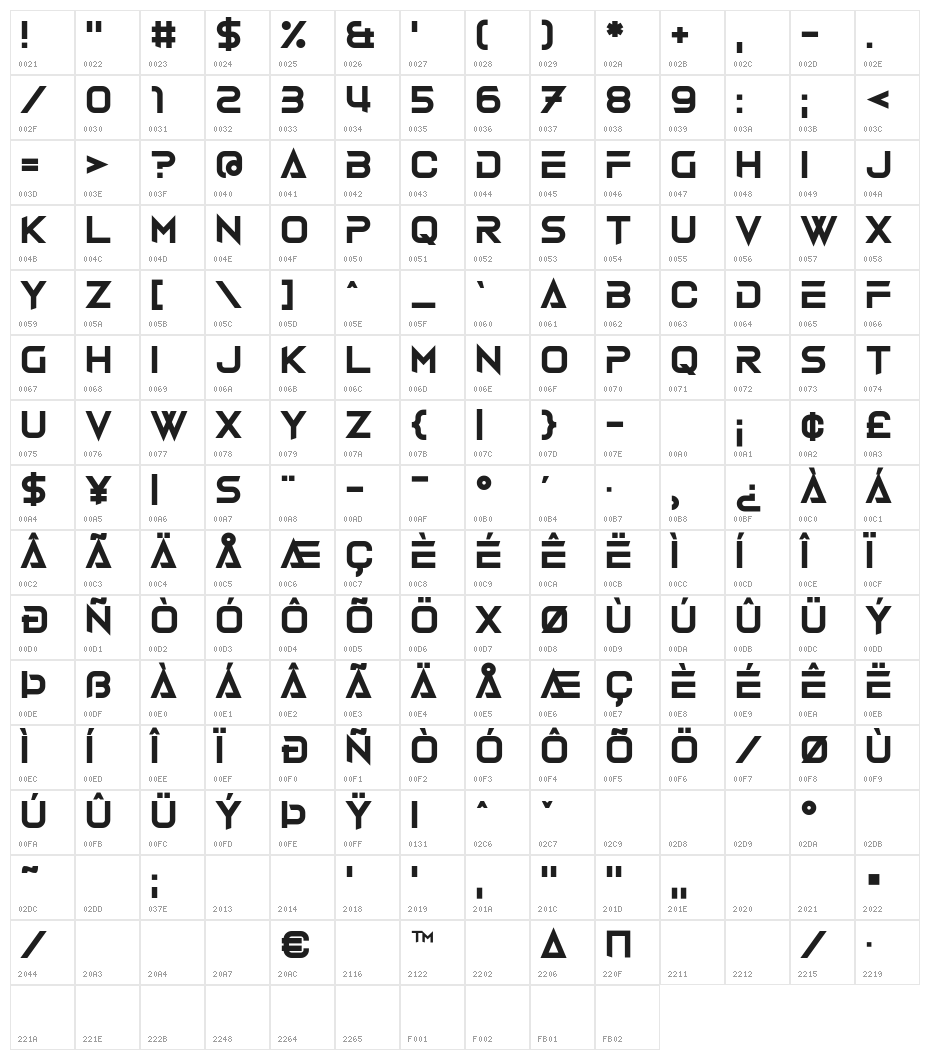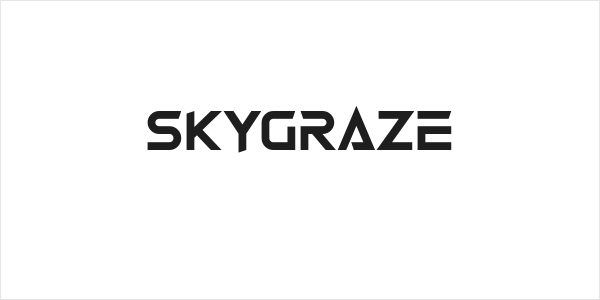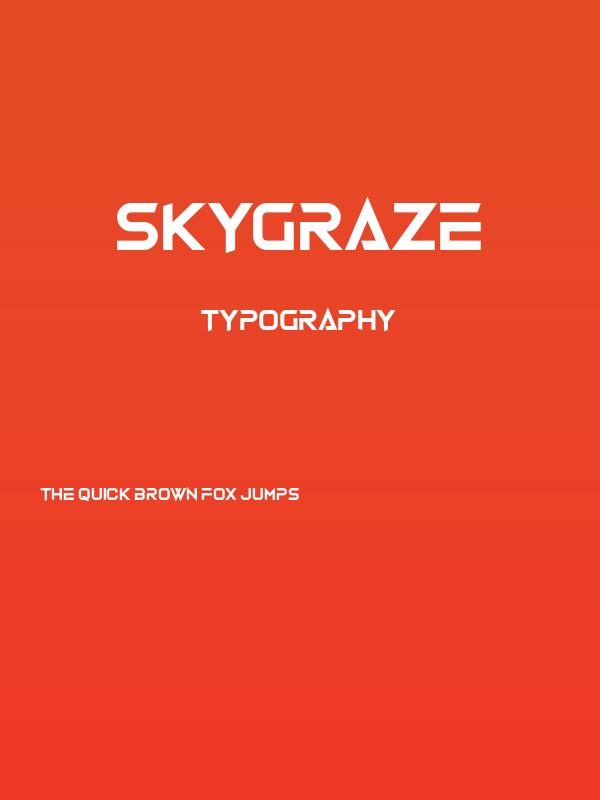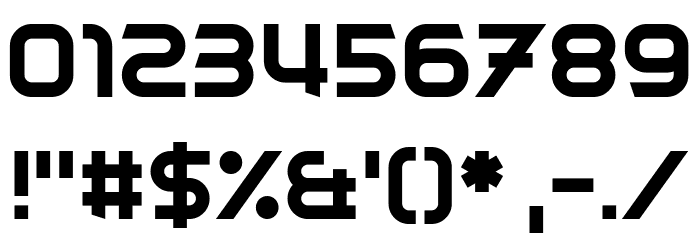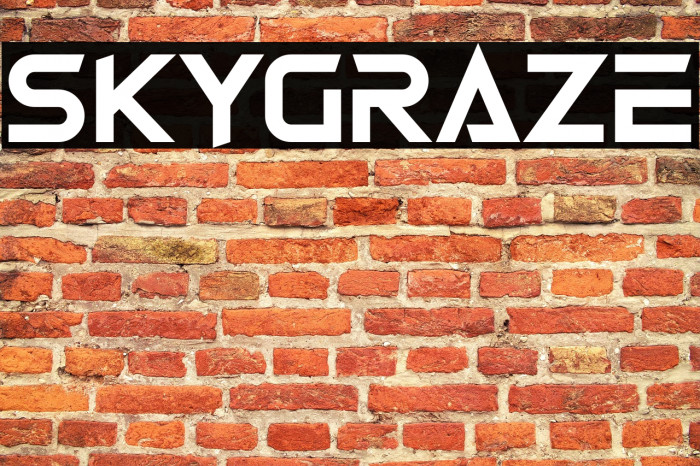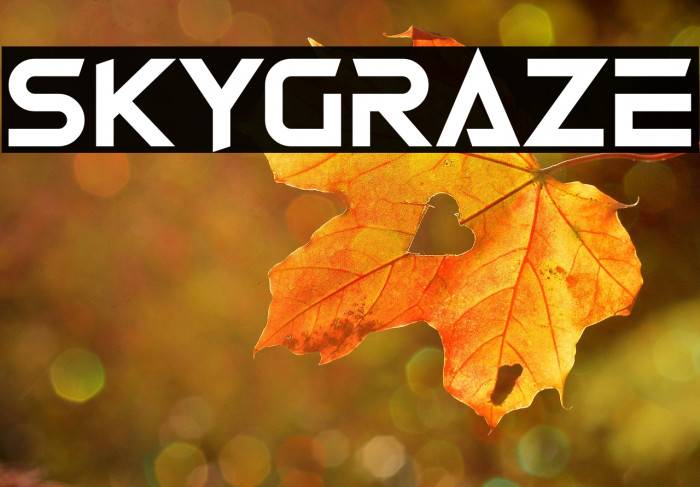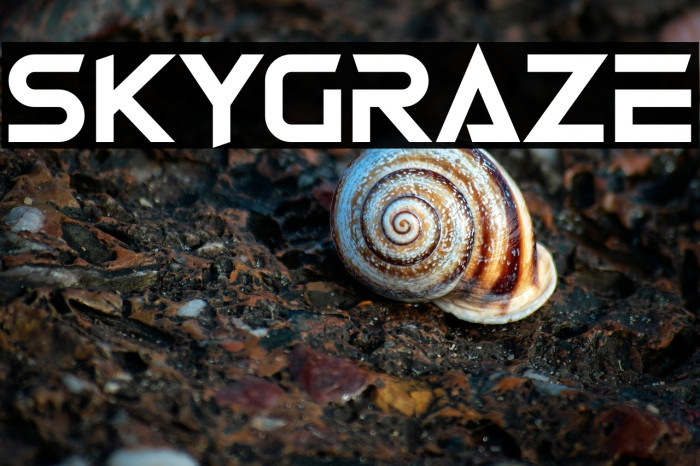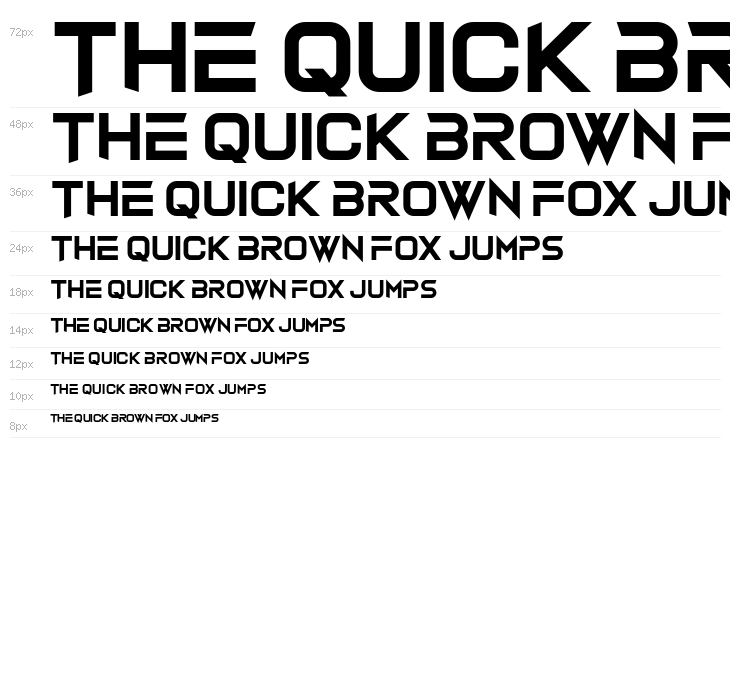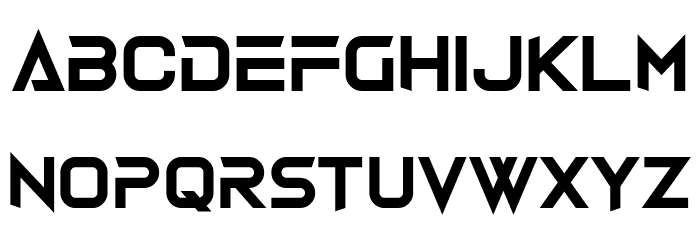
Skygraze Font
This font features a bold and futuristic design with angular, geometric shapes that give it a modern and edgy appearance. The characters are constructed with sharp edges and straight lines, creating a sense of precision and technological advancement. The uppercase letters are particularly striking, with a uniform height and consistent stroke width that enhances readability and impact. The numerals and special characters maintain the same stylistic approach, ensuring a cohesive look across all text elements. This font is ideal for projects that require a contemporary and dynamic feel, such as tech branding, sci-fi themes, or digital interfaces.
| Proposed Projects | Ideal for tech branding, sci-fi themes, digital interfaces, and modern advertising. |